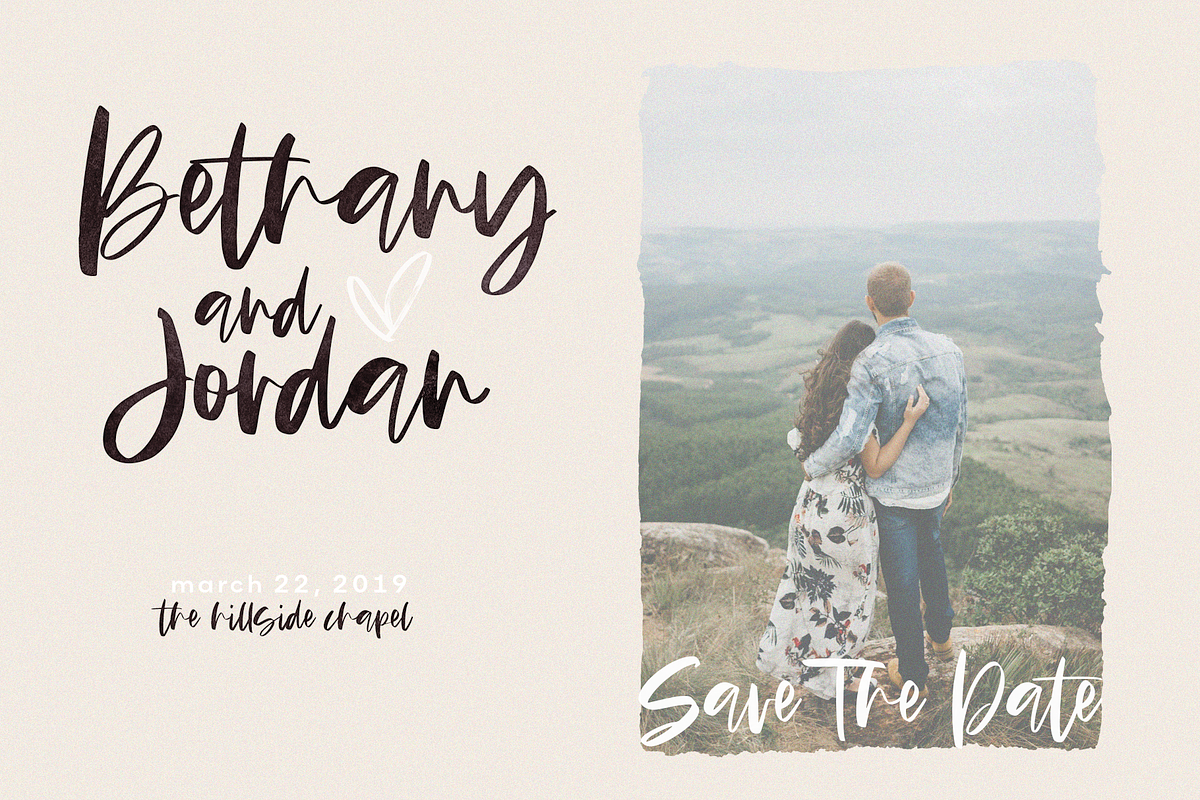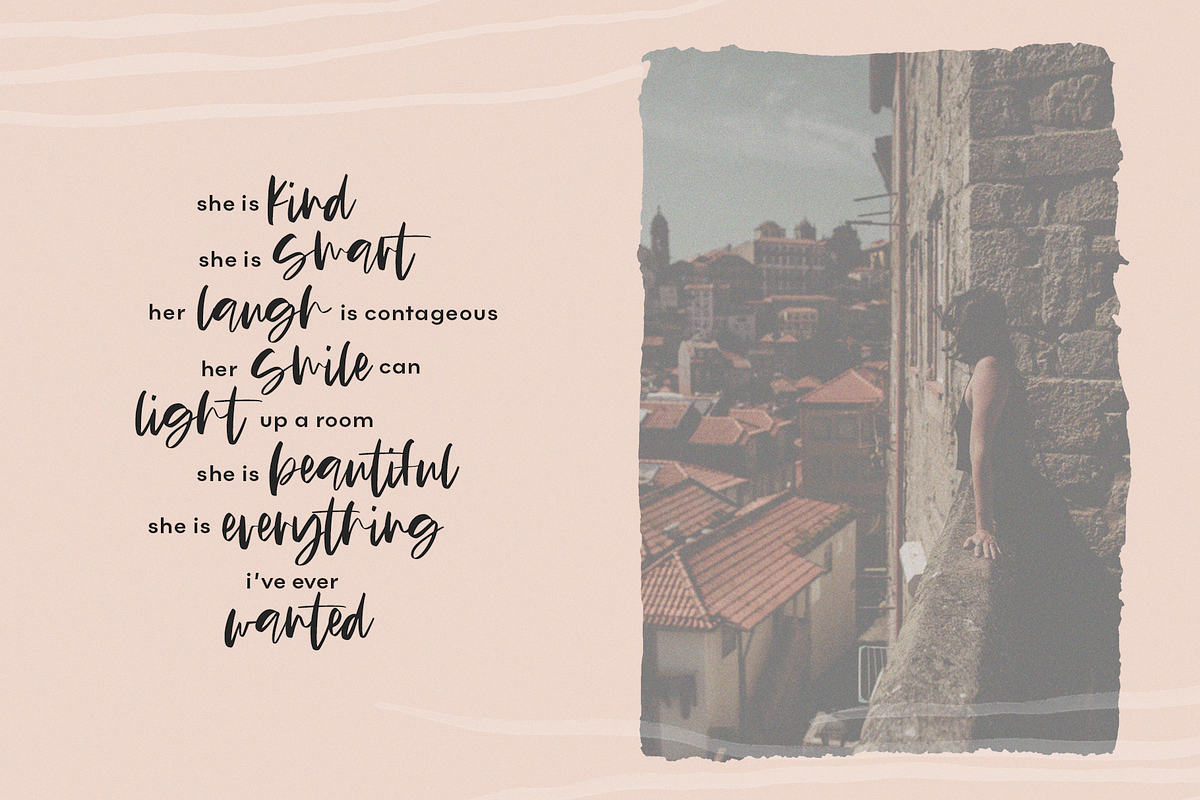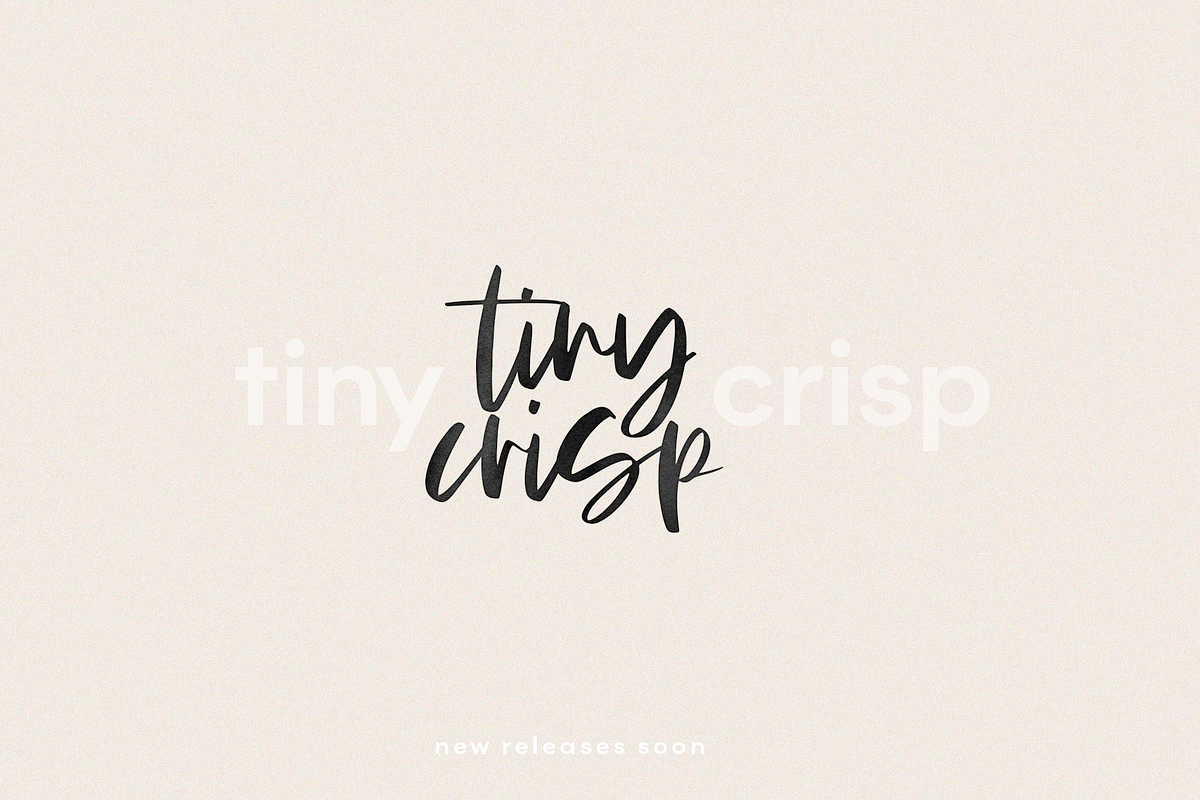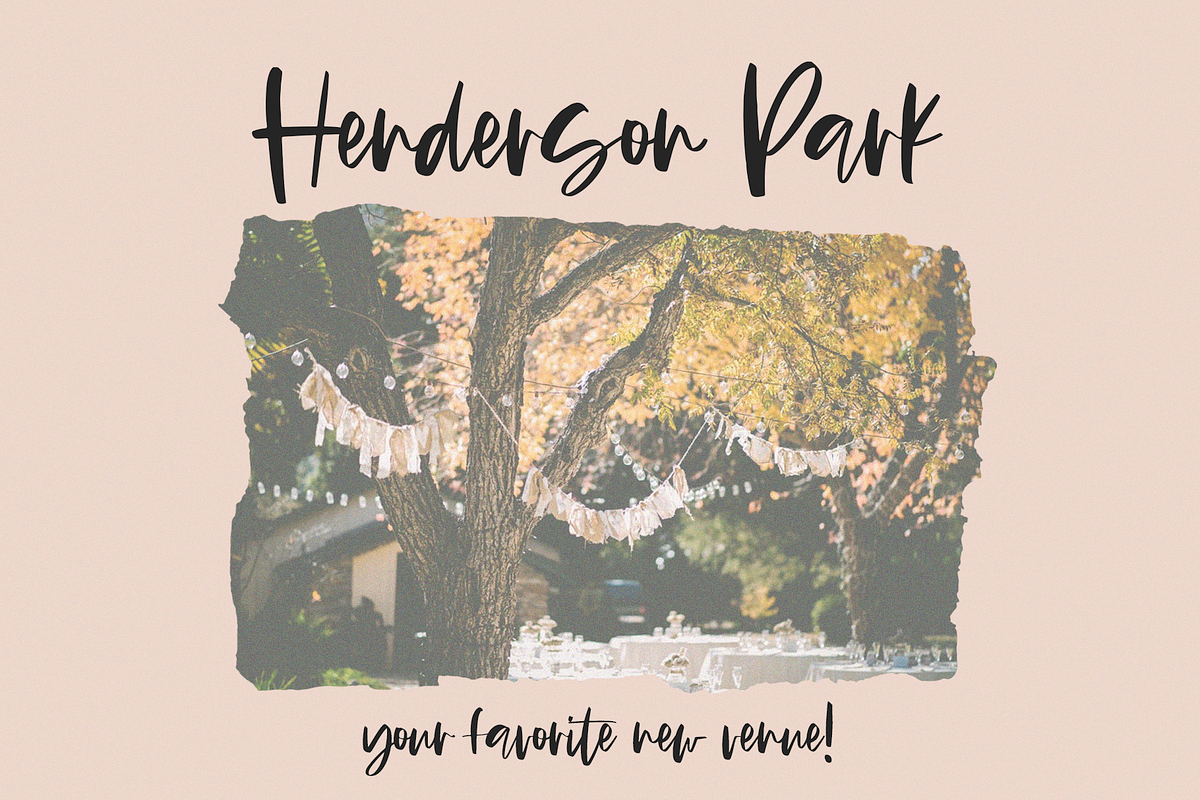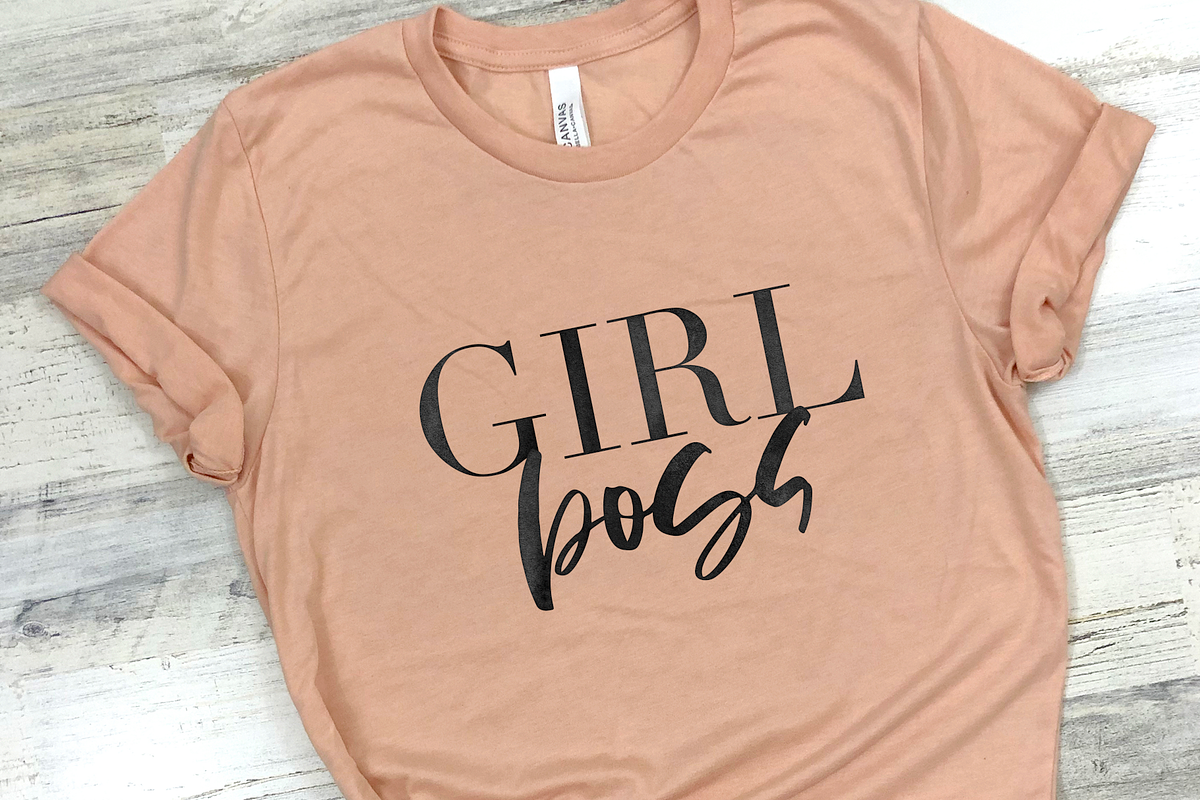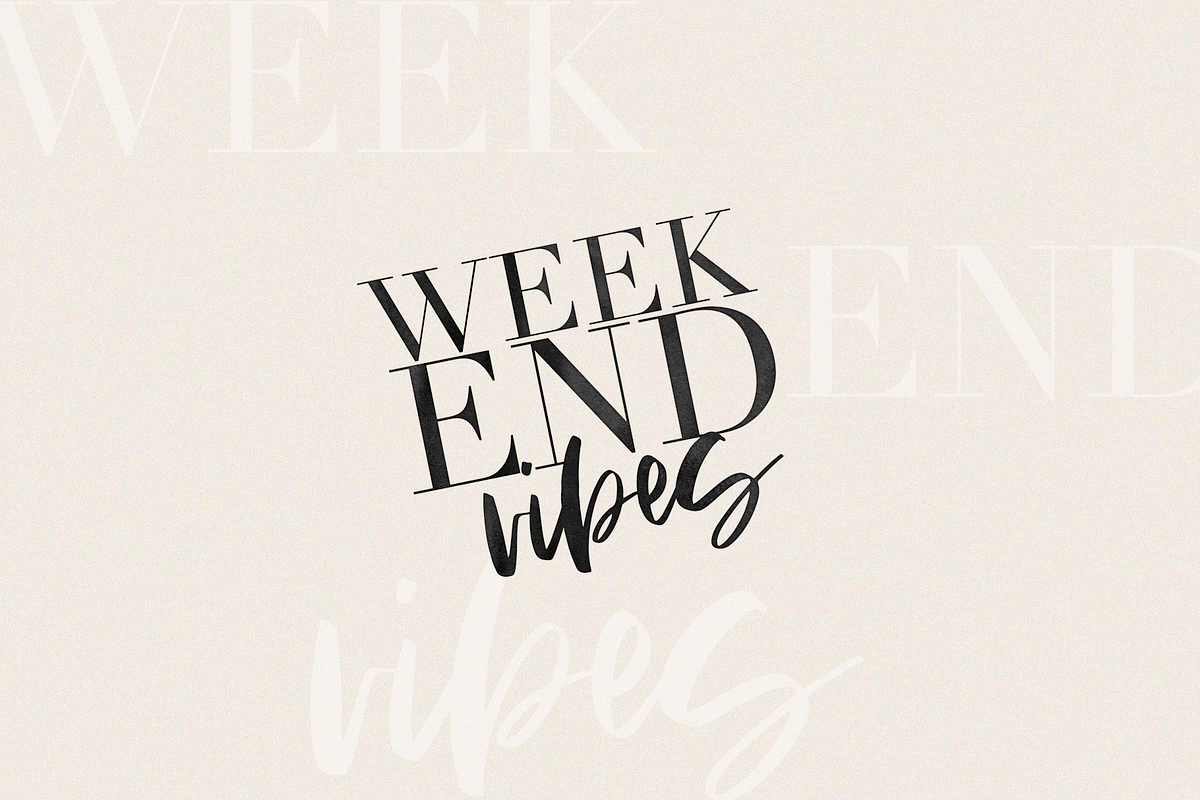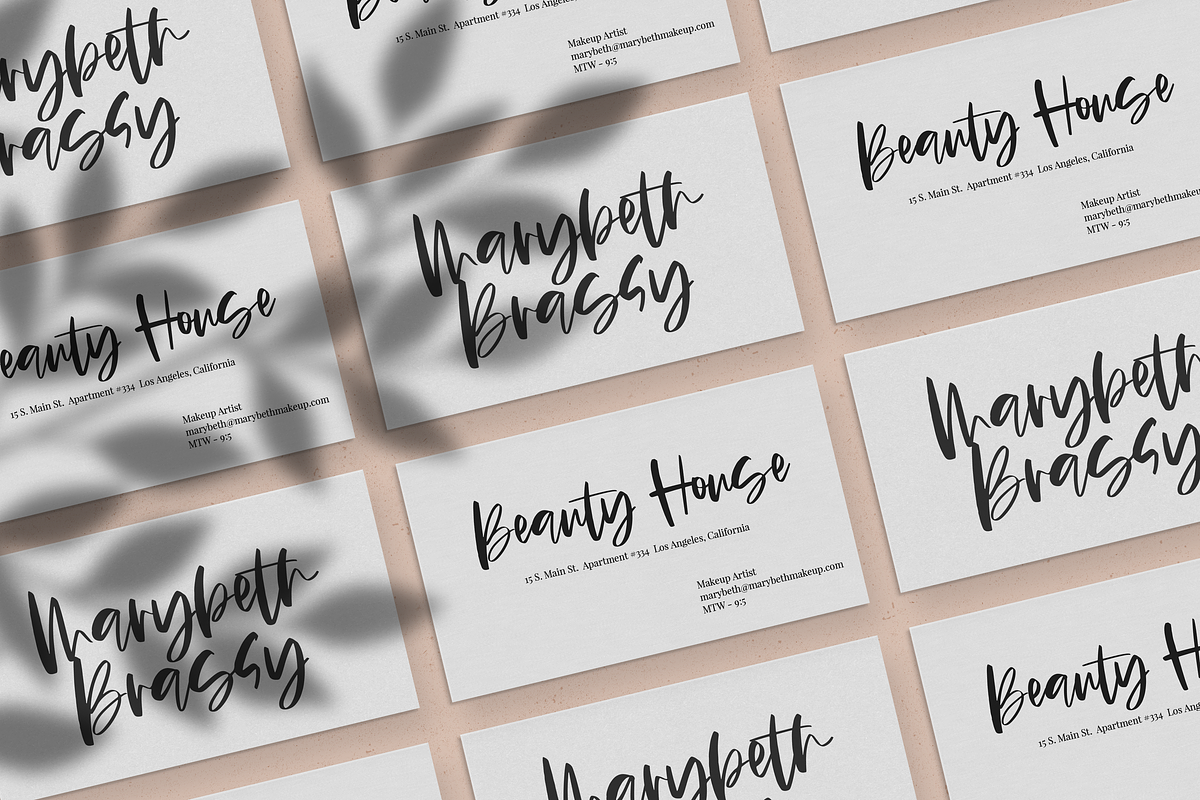
Glossy - A Handwritten Script Font
Glossy is a modern handwritten script font.
This font is perfect for modern projects, headings, blogs, logos, brandings, invitations and more!